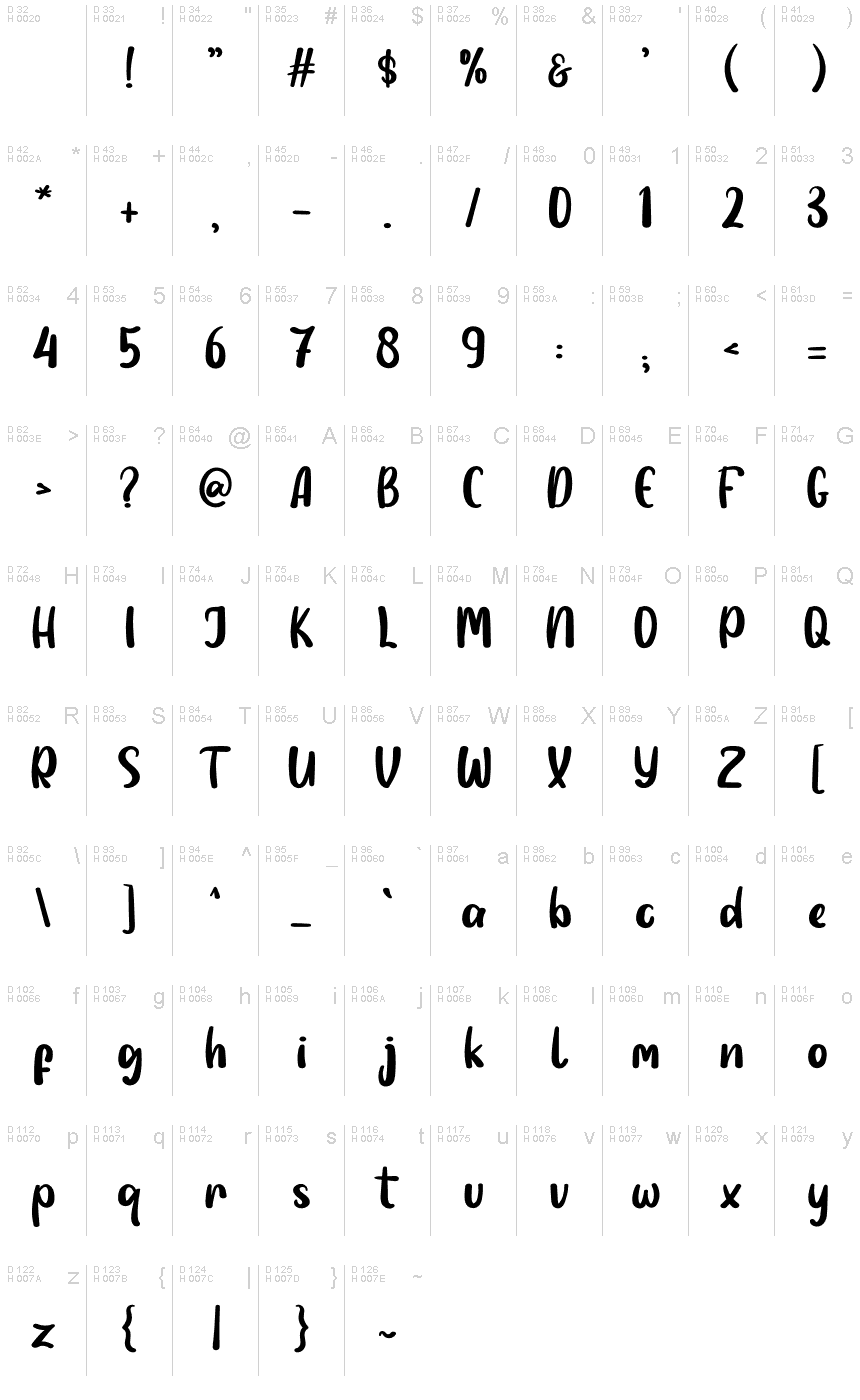
Aurora
Aurora font, designed by Inermedia Studio, is a charming handwritten typeface that is perfect for adding a playful touch to your projects. The bold weight of Aurora makes it stand out and grab attention, while its cute style adds a friendly and approachable vibe. This font is ideal for creating eye-catching designs for children's books, greeting cards, social media graphics, and more. With Aurora font in your toolkit, you can easily convey warmth and personality in your designs. Bring a little bit of magic to your next project with Aurora!